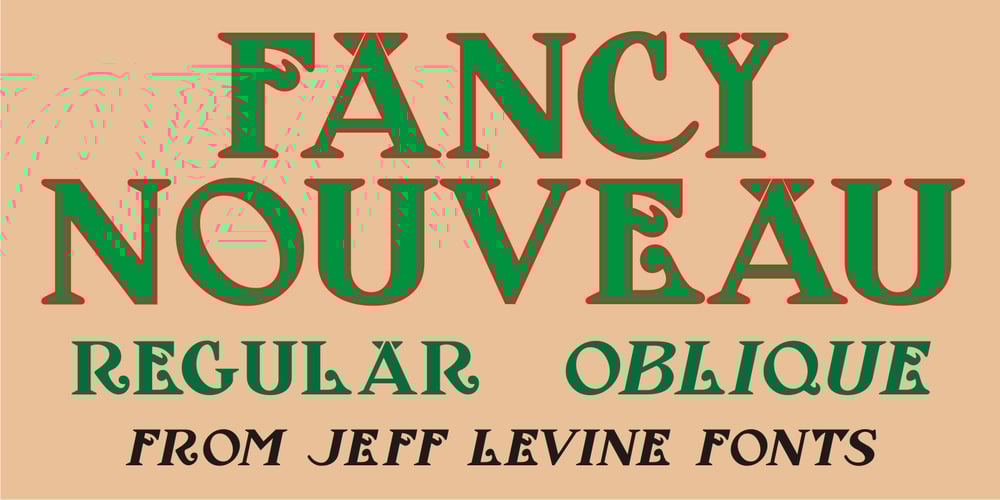
Fancy Nouveau JNL
Fancy Nouveau JNL font
Fancy Nouveau JNL Font Family was designed by Jeff Levine and published by Jeff Levine. Fancy Nouveau JNL contains 2 styles and family package options. The 1907 sheet music for “Take Me Back to Dear Old Dixie” had the song title hand lettered in a decorative serif typeface with strong Art Nouveau influences. This design is now available digitally as Fancy Nouveau JNL, in both regular and oblique versions.